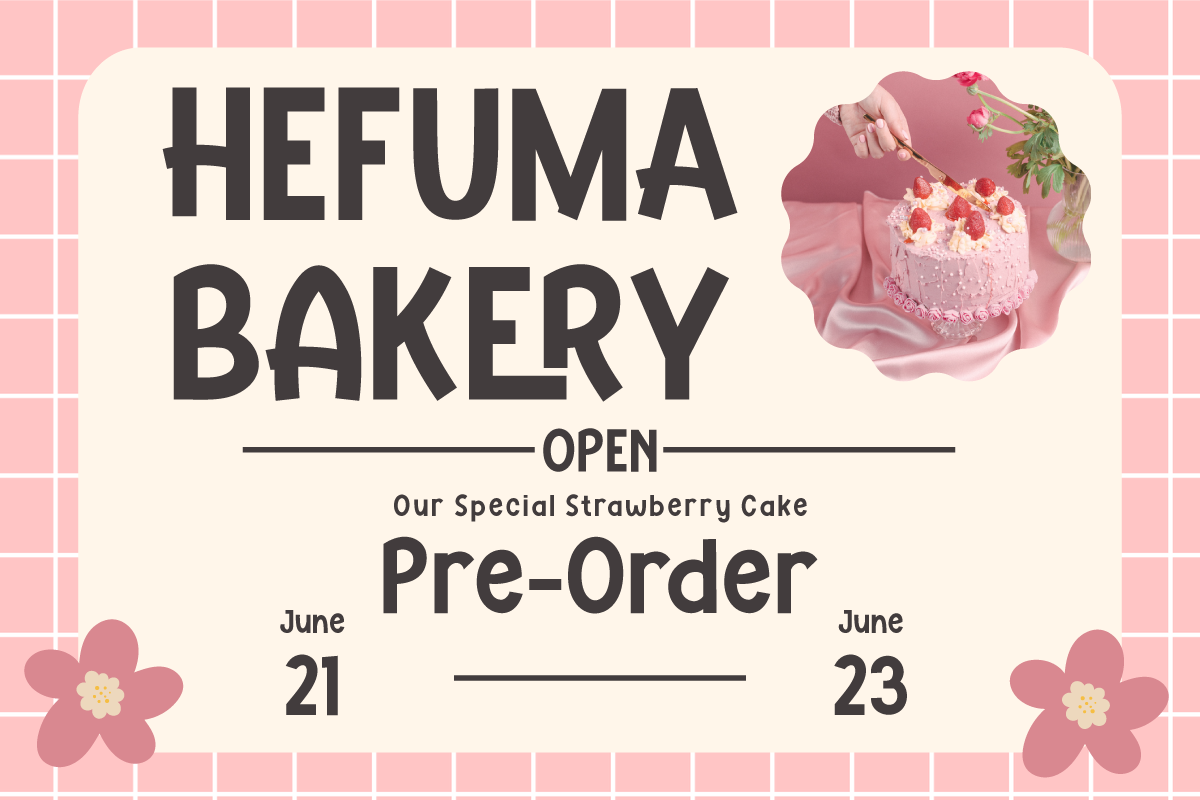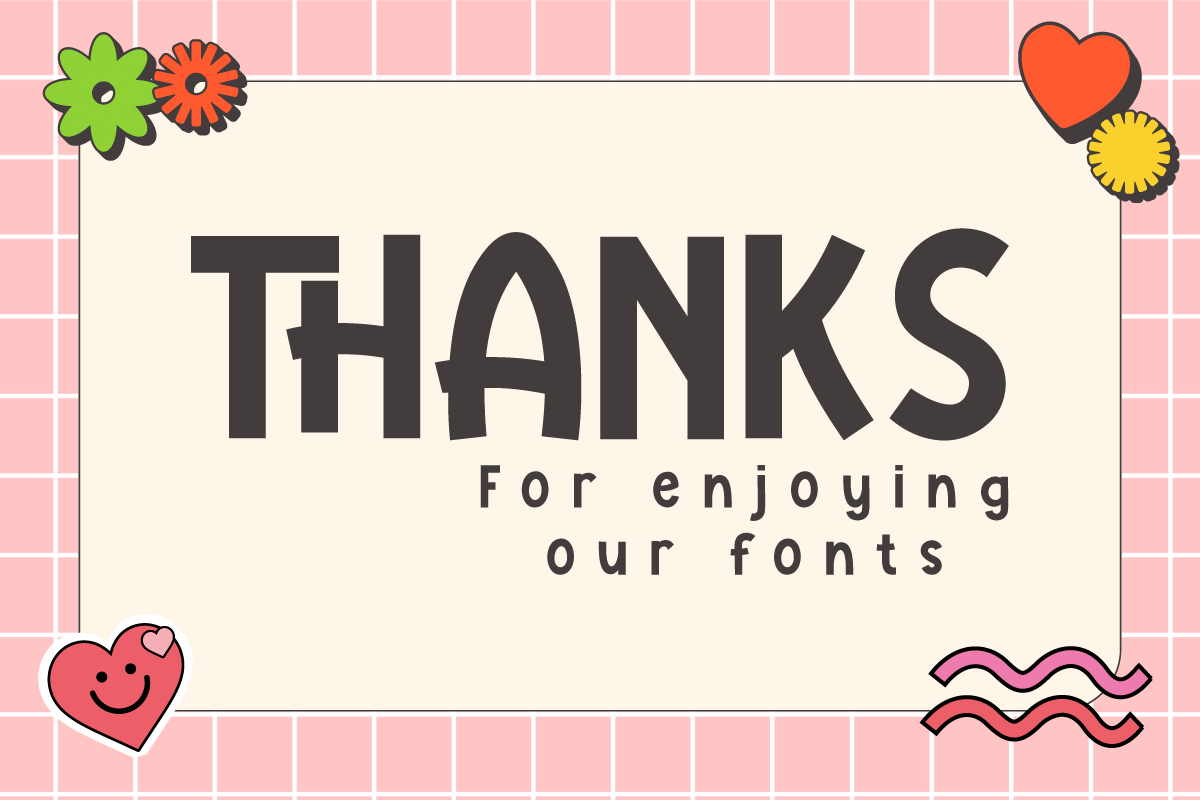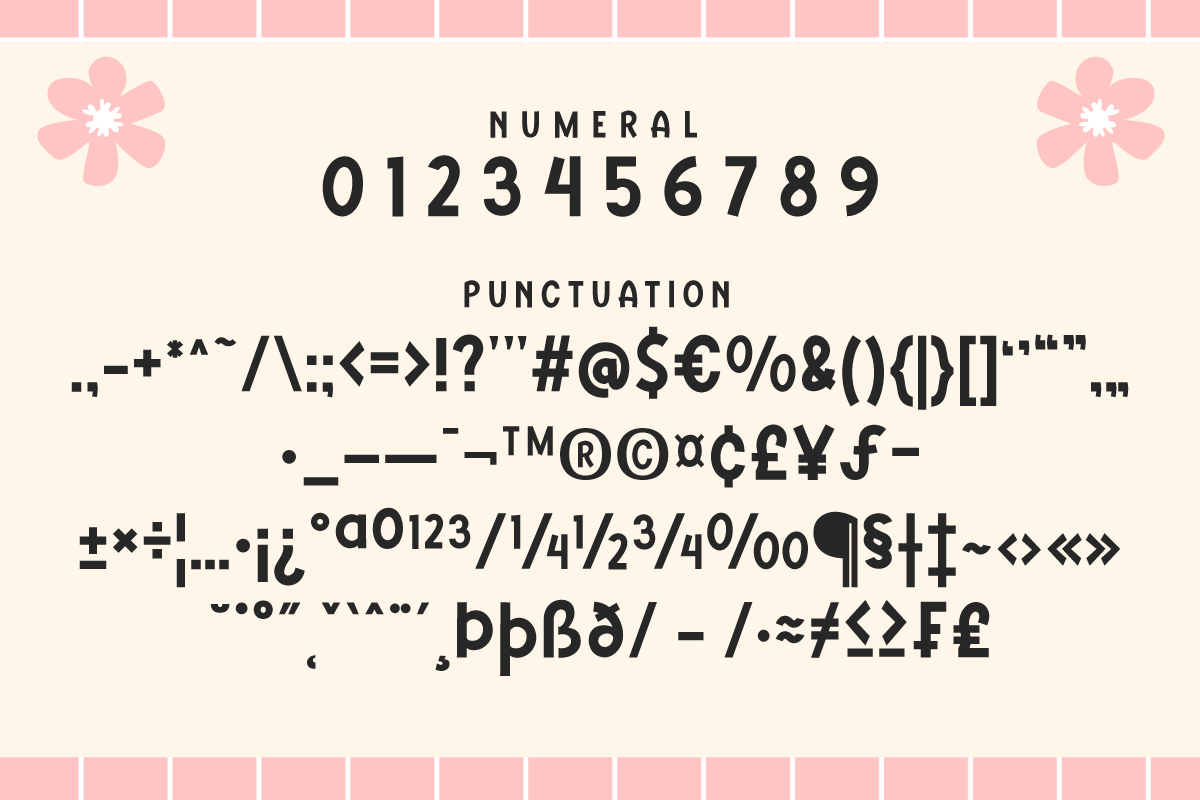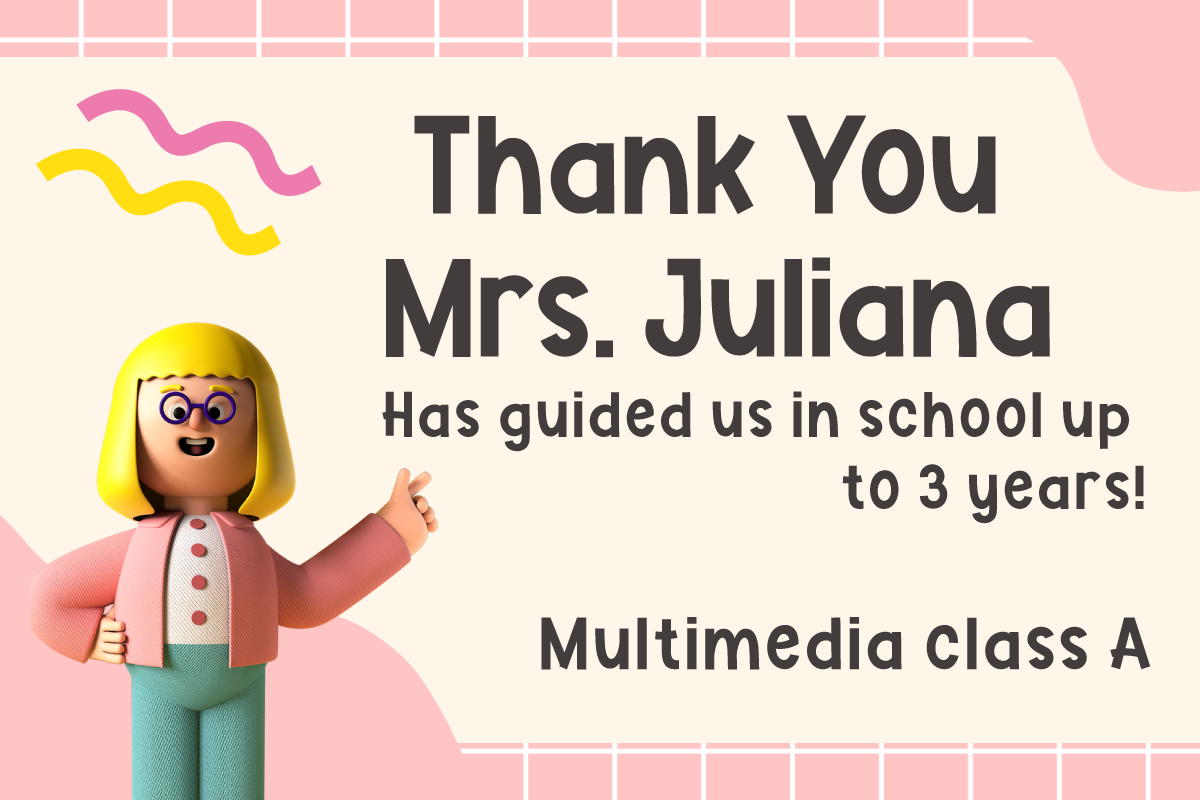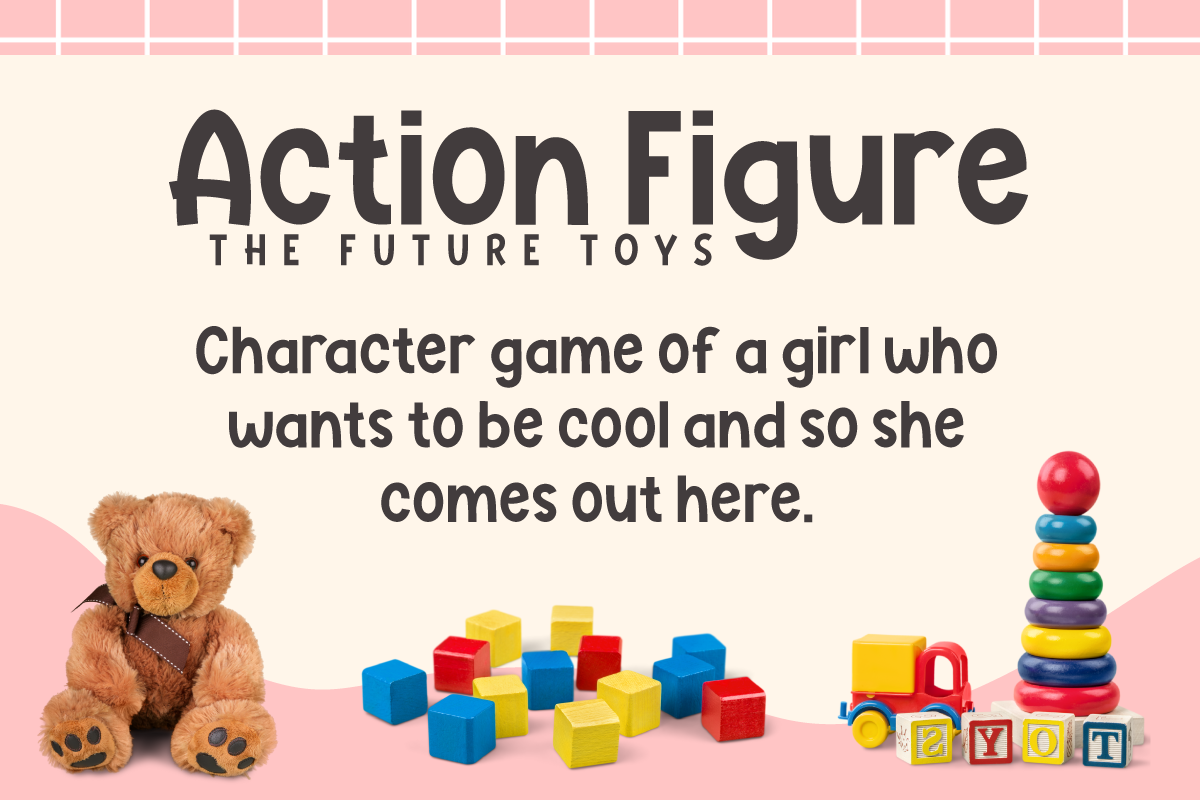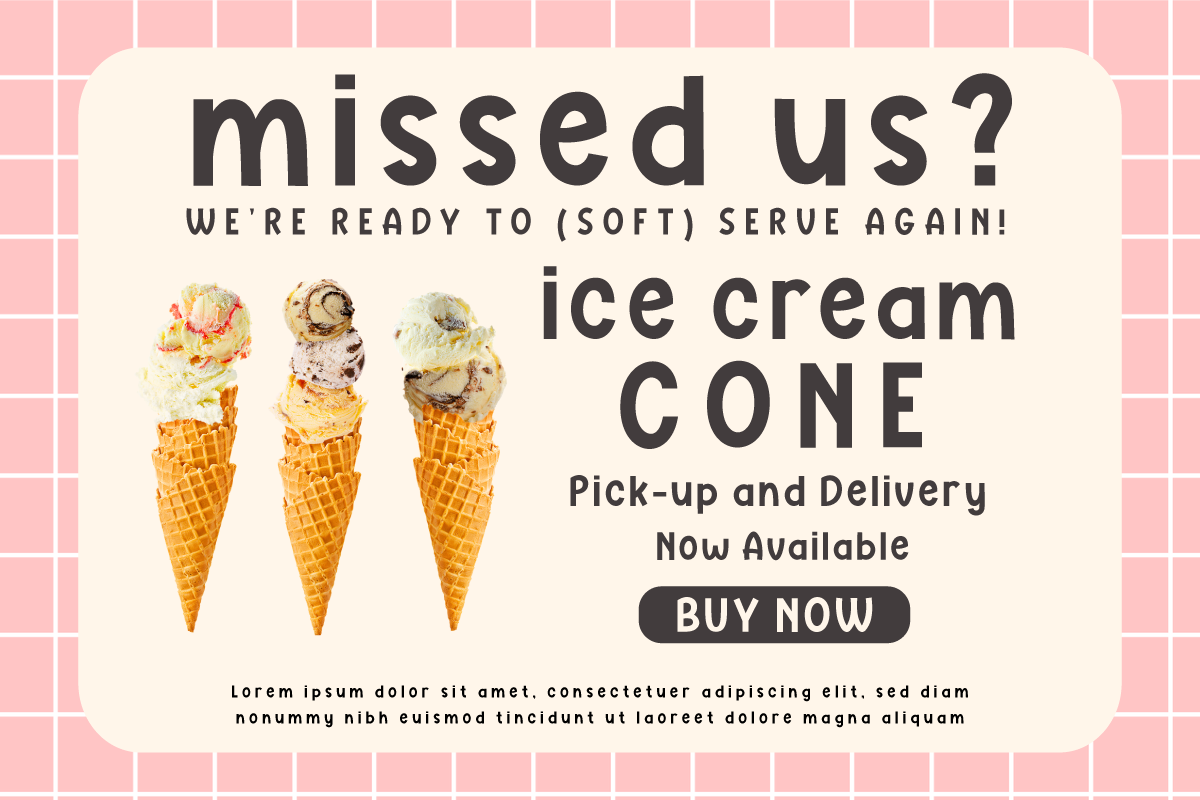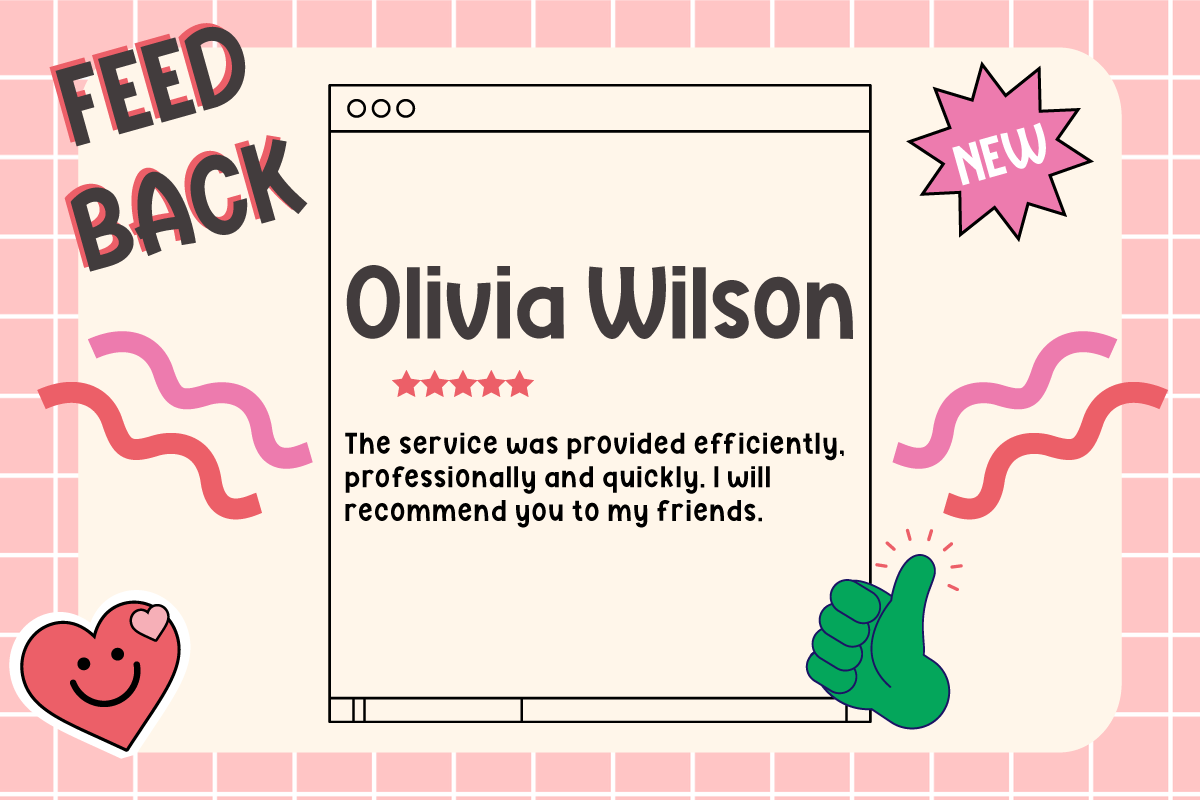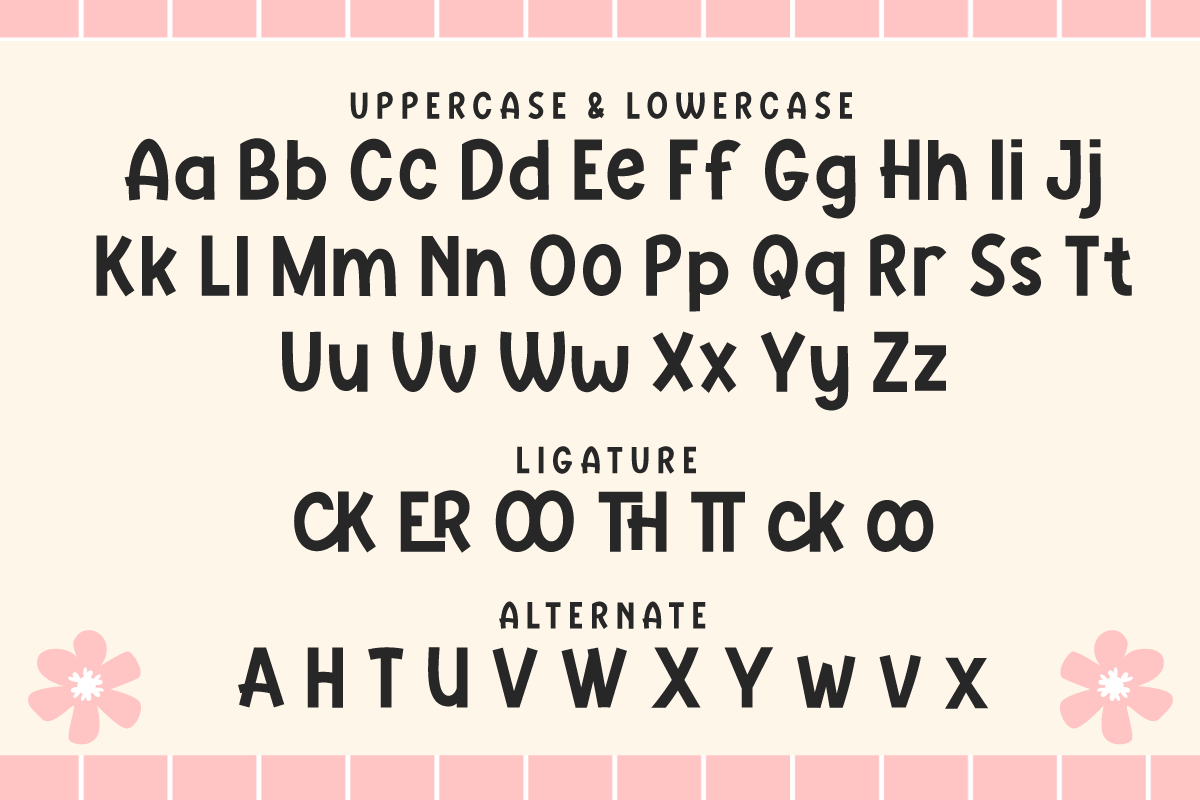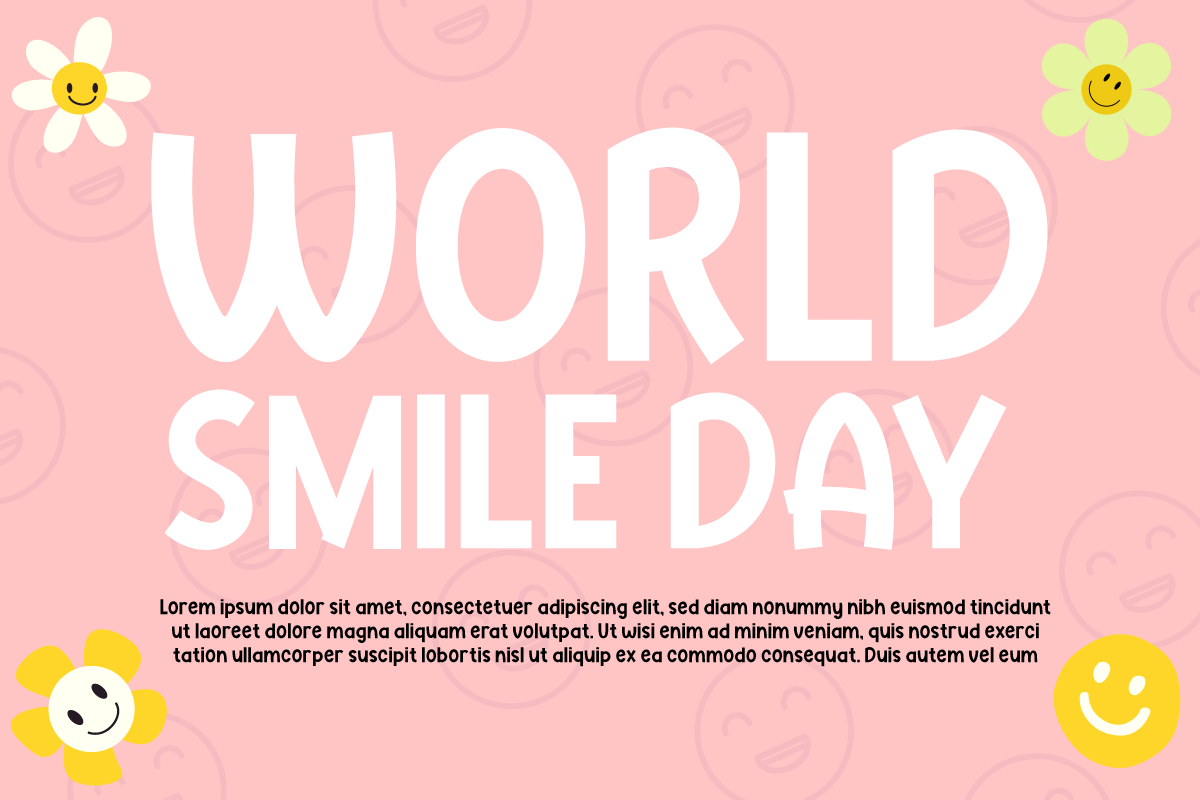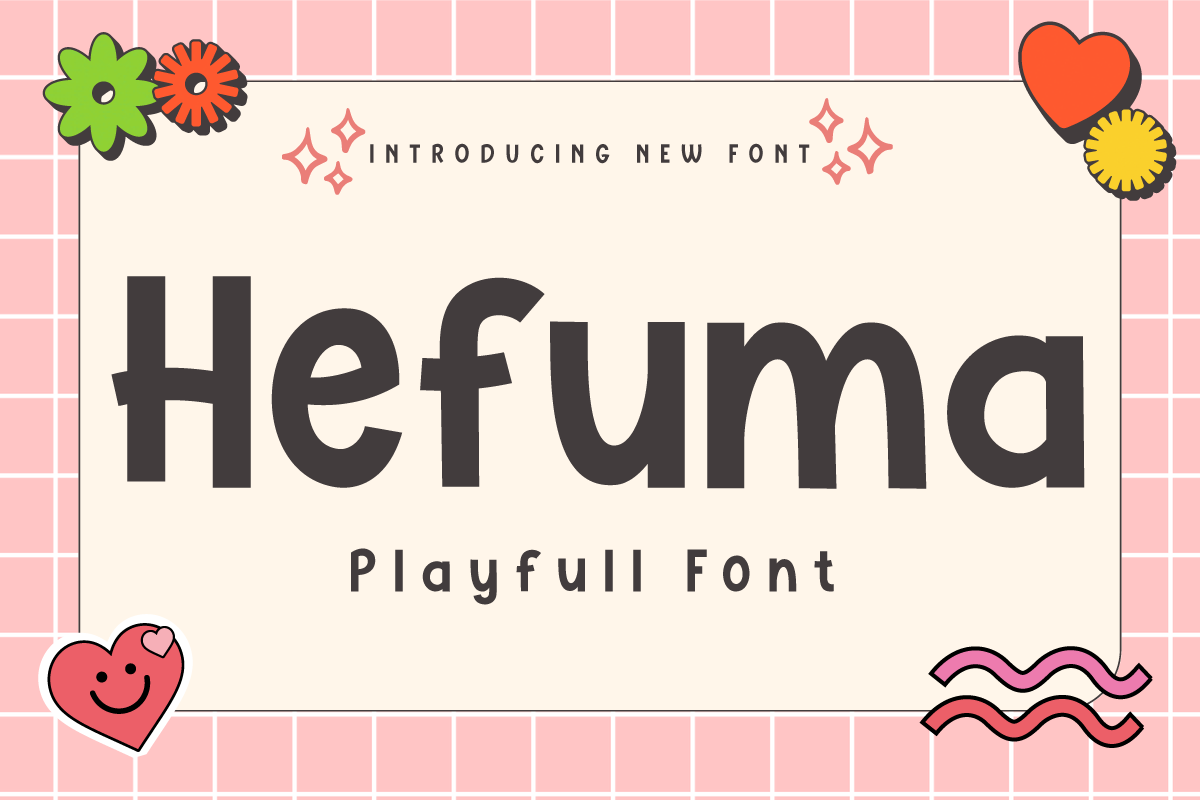
Hefuma | Display Playful Font
Introducing "Hefuma Font" - Where Playfulness Meets Typography! Dive into the world of creativity with Hefuma Font, a playful display font that's set to infuse charm and imagination into your designs.
Hefuma Font adds a delightful twist to your projects, making it ideal for anything from children's books to eye-catching posters. Its whimsical style captures attention and brings a sense of joy to your work. Crafted with meticulous detail, Hefuma Font's unique design invites readers to explore your content with curiosity. Its playful appearance radiates creativity, making it the perfect choice for projects that aim to stand out. With Hefuma Font, the possibilities are endless. Use it to inject a sense of fun into your designs and watch as your creations come to life with personality and flair.
No matter the creative endeavor, Hefuma Font is your trusted companion for adding a playful touch to your work. Embrace the world of creativity, and let Hefuma Font elevate your designs to new heights.
- Alternate, Ligature